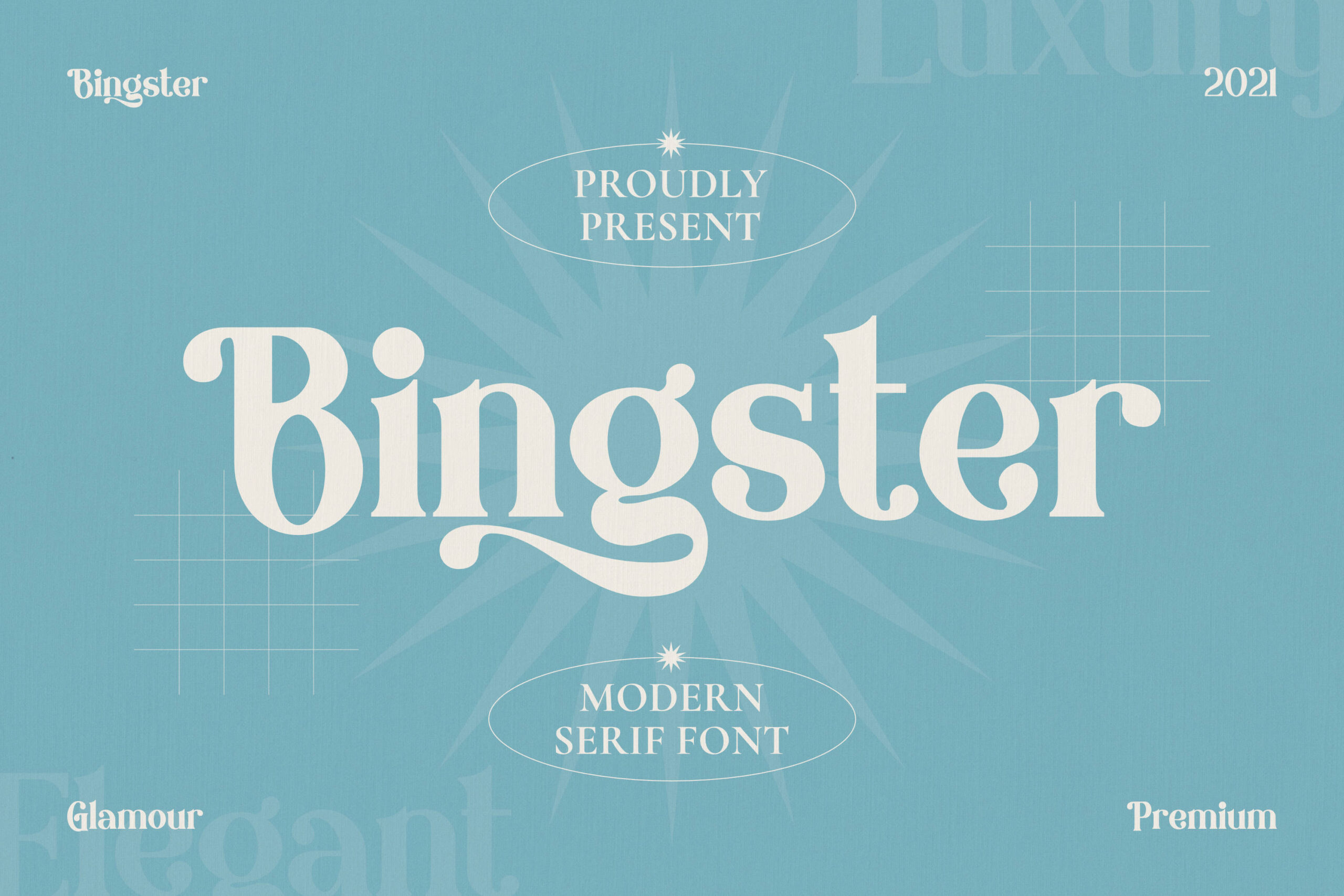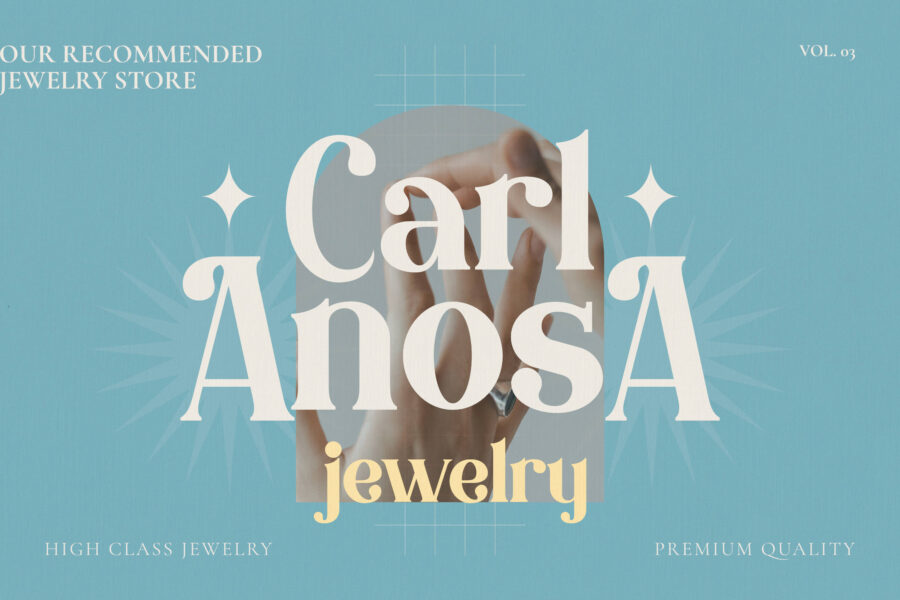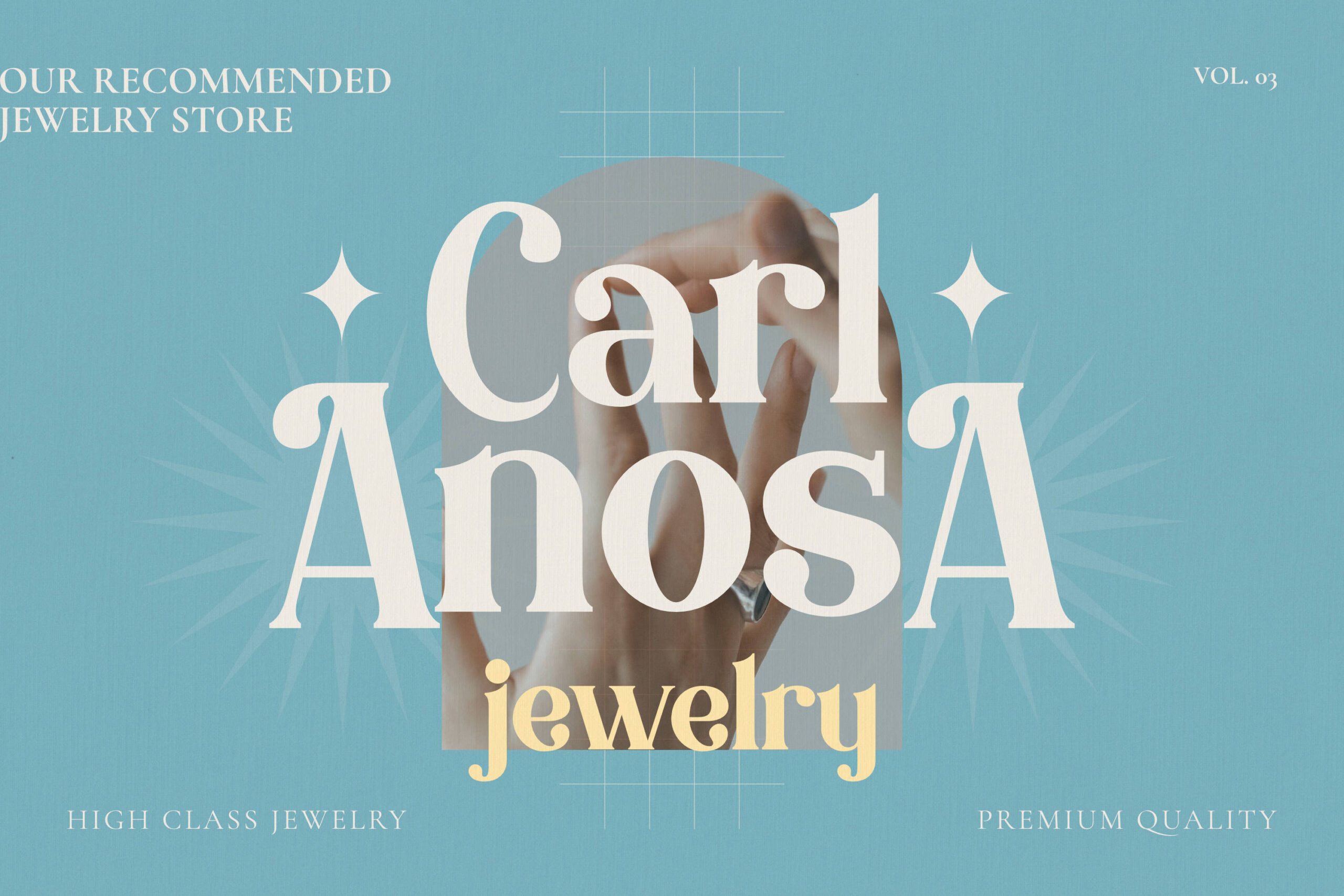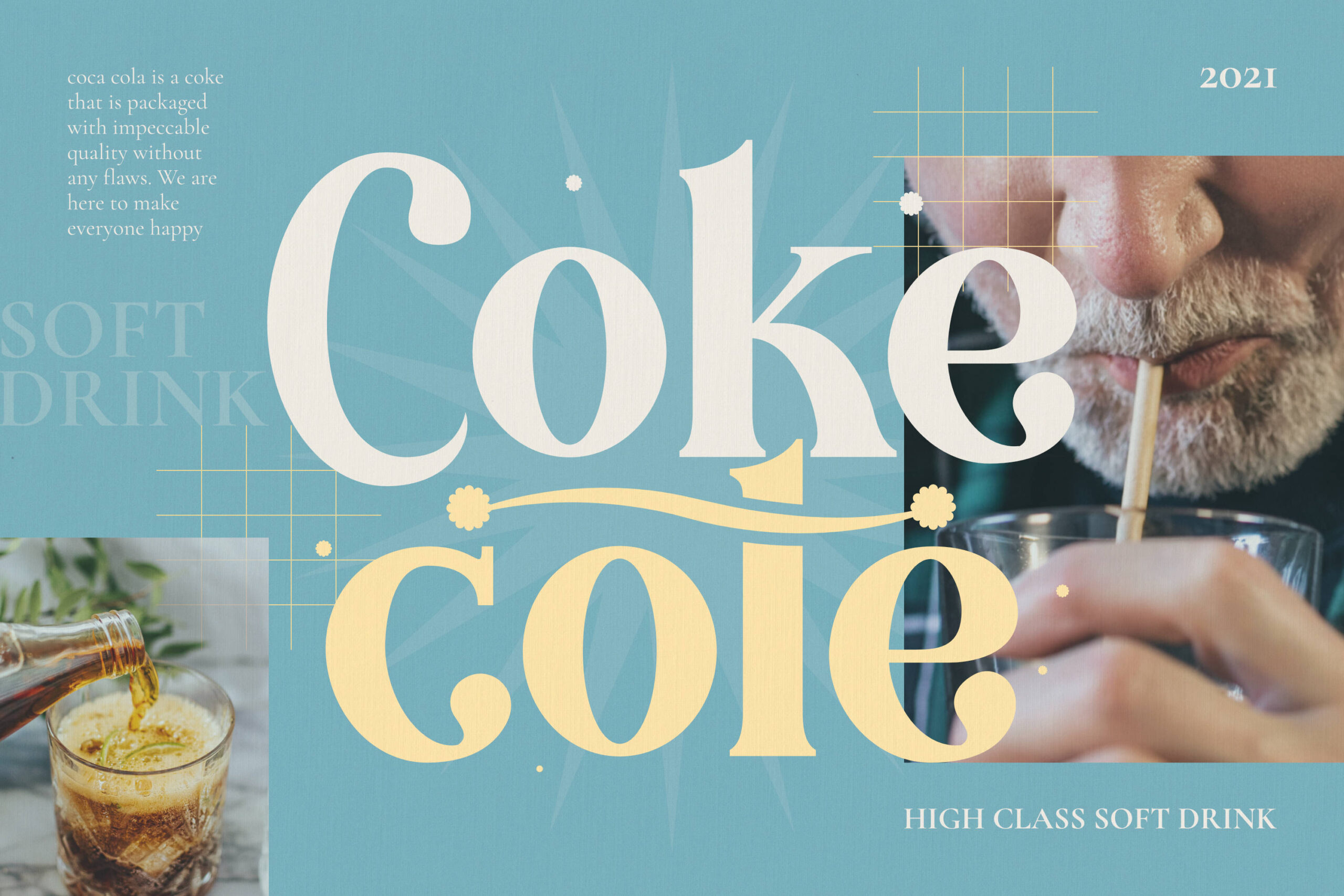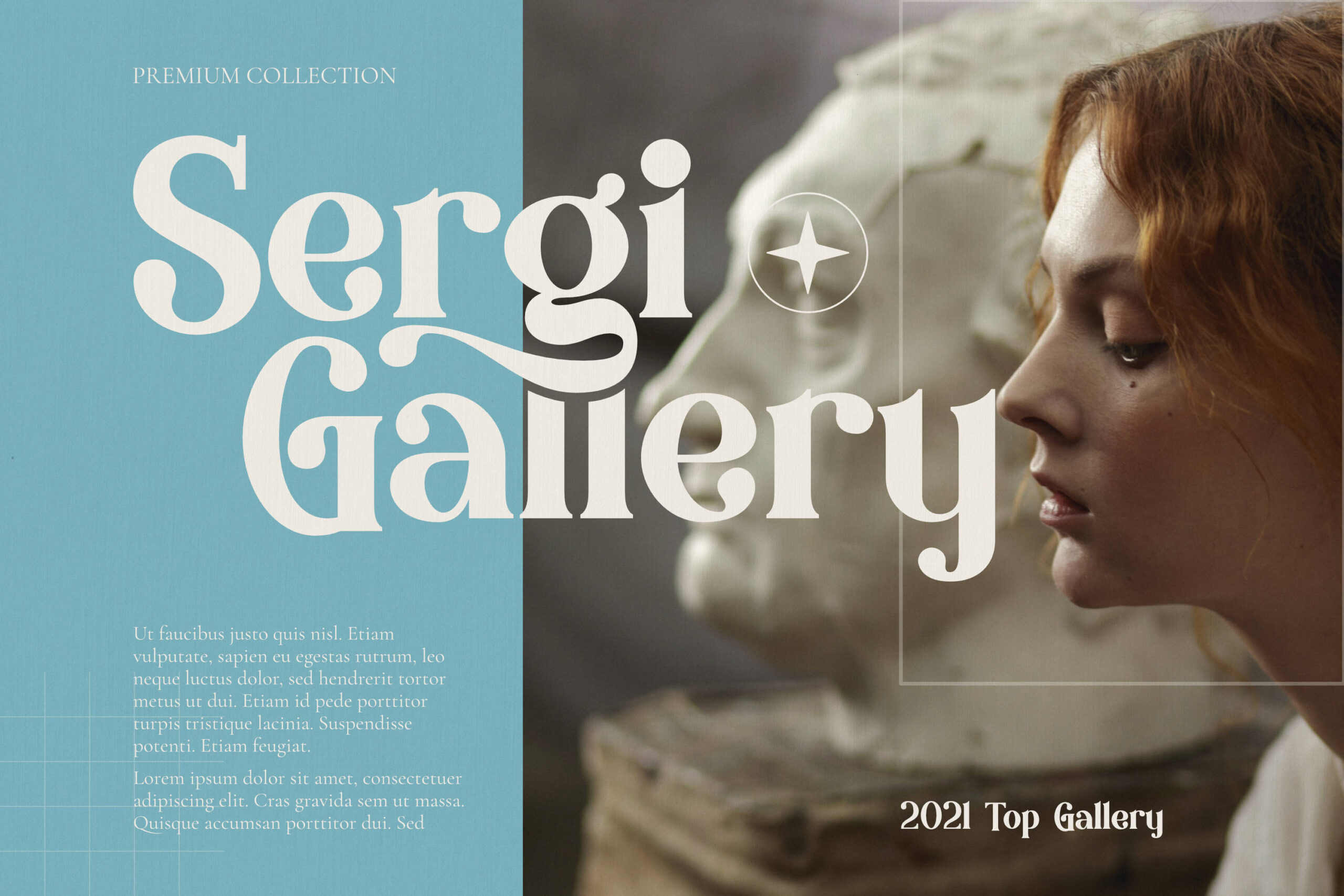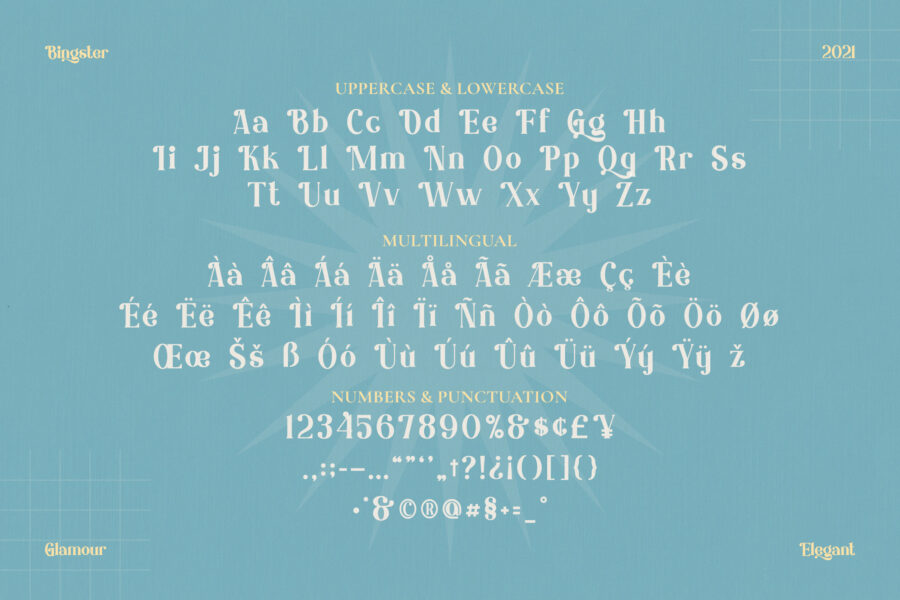
Bingster
Bingster is a modern serif display font that blends elegance with a touch of retro charm. With its refined curves, playful swashes, and subtle contrast, Bingster is crafted to stand out in luxurious branding, stylish headlines, and high-end packaging. The graceful flow of its characters—especially the stylized “g” and decorative “r”—makes it an excellent choice for premium, glamour-oriented designs.
From fashion editorials to upscale product branding and art galleries, Bingster brings a bold yet classy impression to your typography. Complete with multilingual support, punctuation, and beautiful ligatures, this font is both versatile and visually striking, delivering a confident and creative identity in every use.